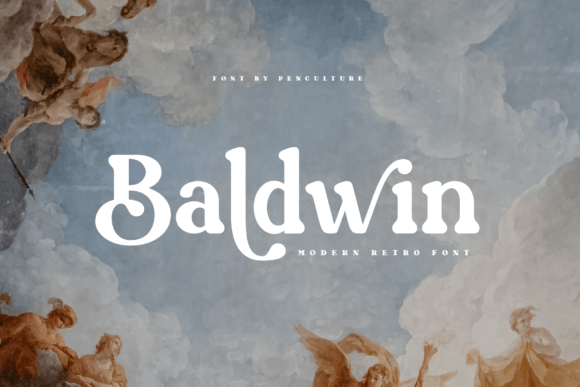
A font with the charm of a bygone era and the elegance of the modern world, Baldwin is the serif font that will add a touch of timeless sophistication to your design projects. With its beautifully rendered letterforms and a wide range of styles, Baldwin is the perfect choice for branding materials, editorial layouts, and web designs.
Baldwin's clean lines and classic structure create a sense of harmony and balance, making it easy to read and visually appealing. Whether you are designing a logo, a brochure, or a website, Baldwin will ensure that your message is conveyed with clarity and impact.
This versatile font also offers a range of stylistic alternatives, allowing you to customize your designs and create a unique look that reflects your brand or project. From elegant swashes to playful ligatures, Baldwin provides you with the creative freedom to express your individuality.
As a serif font, Baldwin carries a sense of tradition and authority, making it an excellent choice for projects that require a sense of credibility and trust. Its timeless design ensures that your designs will remain relevant and stylish for years to come.
But Baldwin is more than just a beautiful font; it's a font with a story to tell. Inspired by the golden age of typography, Baldwin captures the essence of vintage design while maintaining a contemporary edge. Its retro charm adds a touch of nostalgia to your projects, evoking feelings of warmth and familiarity.
With Baldwin, you can create designs that are both visually stunning and emotionally resonant. Whether you're a designer, a marketer, or a creative professional, Baldwin is the font that will help you make a lasting impression and connect with your audience.